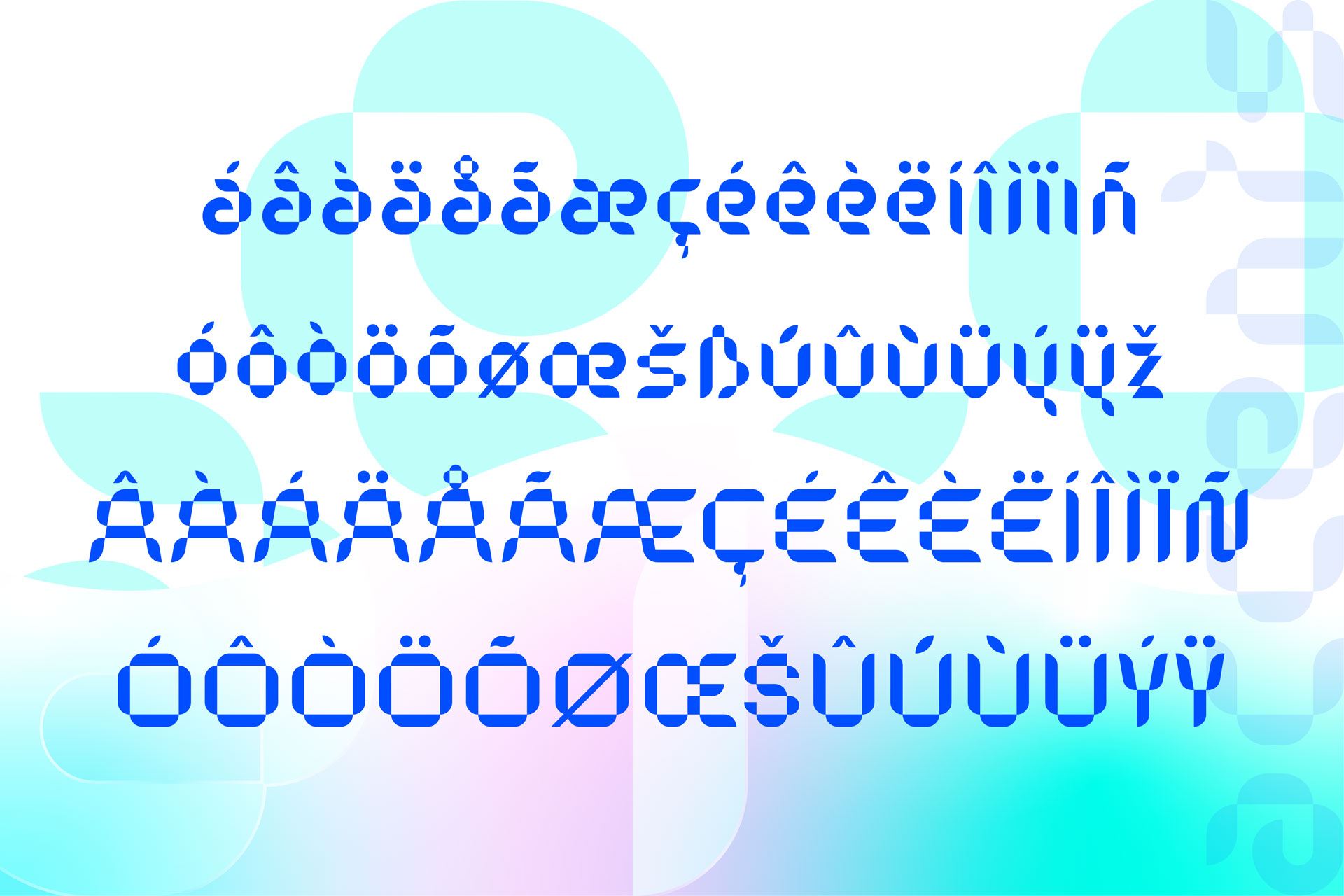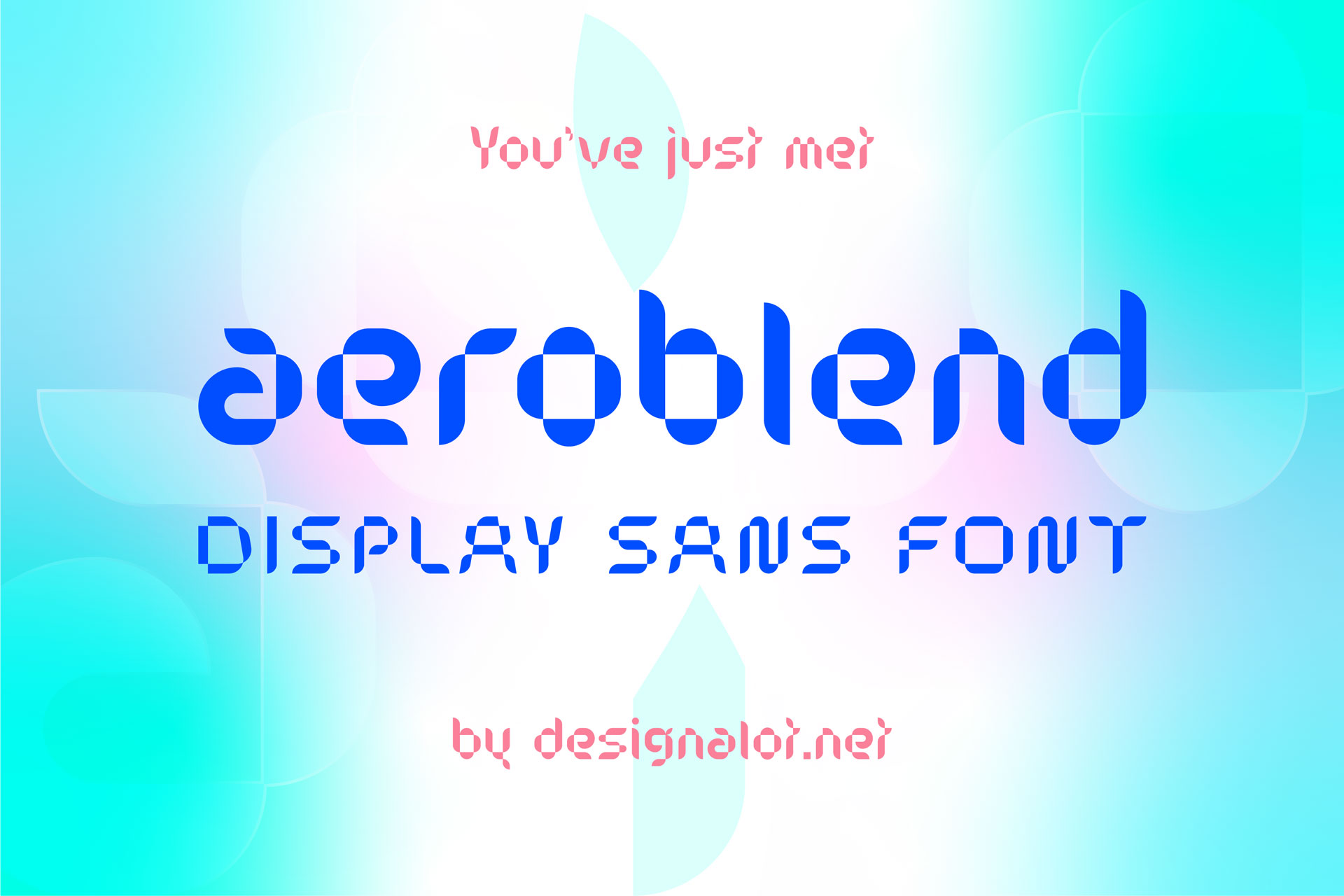
Meet AeroBlend Display Font, a modern and futuristic typeface that brings a touch of sleekness to your creative projects. With its clean lines, intersecting curves, and contemporary vibe, AeroBlend is the perfect typography solution for bold and innovative projects.
Designed with precision, this font strikes the right balance between style and readability. It offers a single weight/style that effortlessly combines elegance with a touch of technological sophistication. This makes it incredibly versatile and suitable for a wide range of design applications.
From attention-grabbing headlines to memorable branding projects, AeroBlend Display Font helps you make an impact. Its strong presence adds a sense of modernity to your designs, ensuring that your message stands out from the crowd.
With AeroBlend Display Font, you have access to an extensive character set. It includes lowercase and uppercase letters, numerals, special characters, accented characters, and a variety of symbols. This comprehensive collection gives you the freedom to express your creativity and bring your vision to life with clarity and precision.
Crafted with meticulous attention to detail, this font is available in the .OTF (OpenType) file format, ensuring compatibility across various design software and platforms. One of the notable features of it is its set of alternates. Certain letters have carefully designed alternatives, adding even more versatility and creative possibilities to your designs.
Whether you’re a graphic designer, web developer, or simply a typography enthusiast, AeroBlend Display Font is a must-have in your toolkit. It’s crafted to meet the demands of modern design, offering versatility, legibility, and a hint of futuristic charm. It’s perfect for branding, headlines, posters, packaging, monogram designs and more.
Take your projects to the next level with AeroBlend Display Font and unleash your creative potential. Let AeroBlend add a touch of modern sophistication to your designs and create an unforgettable visual experience.